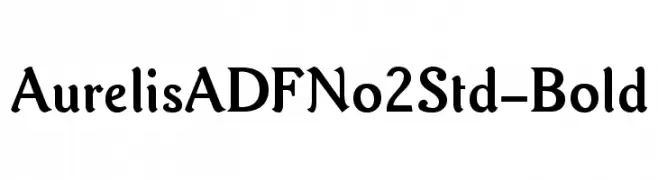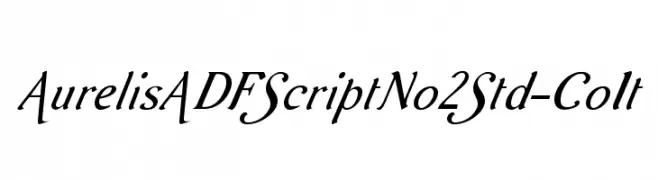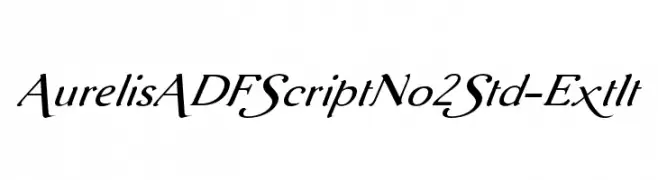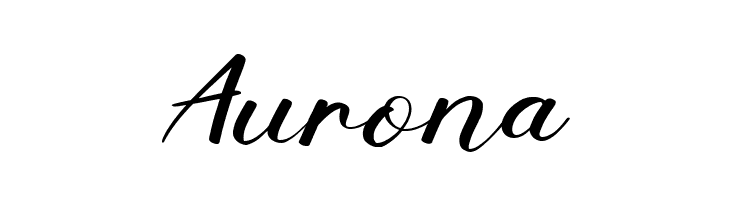
A bold, modern unicase font with geometric, rounded characters.
A bold, expressive handwritten font with fluid, dynamic strokes.
A bold, elegant serif font with a classic and timeless style.
A bold, italic serif font with a classic yet modern appeal.
A classic serif italic font with smooth, flowing curves and refined elegance.
A classic serif font with elegant strokes and moderate contrast, ideal for versatile use.
An elegant script font with a classic, calligraphic style.
An elegant, flowing script font with moderate contrast and dynamic slant.
An elegant, italic script font with flowing, cursive characters.
An elegant script font with intricate swirls and flourishes.